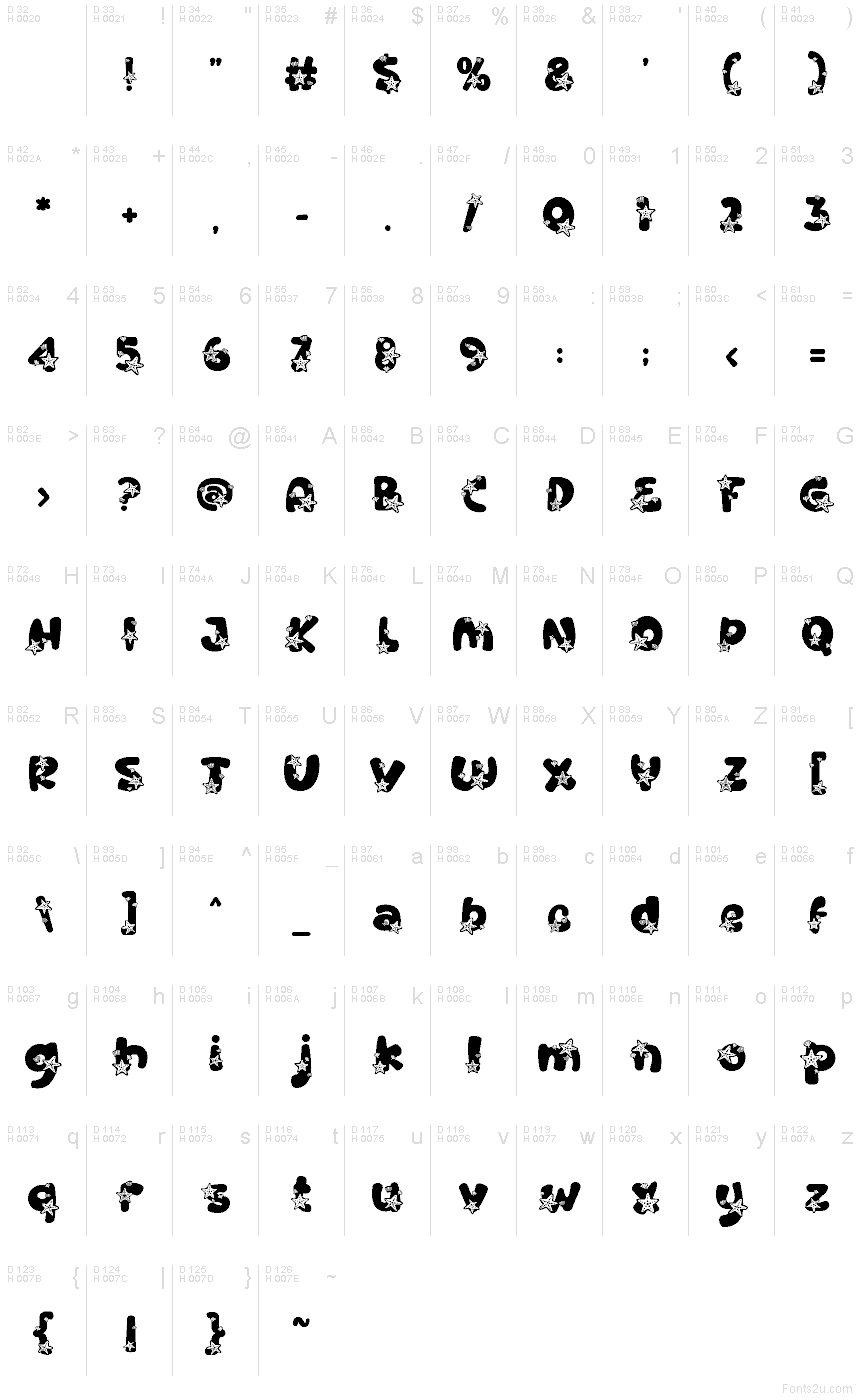
Sandy Toes Star Fish
Sandy Toes Star Fish font by PutraCetol Studio is a display typeface with star motifs throughout the letters. Featuring textured interior patterns, the script handwritten font offers a retro-inspired look that despite its bold characters maintains a casual aesthetic suitable for leisure contexts.
Create captivating packaging designs for your food products including biscuit and chocolate bar branding or take the fun on to your store signage banners. Use the font to focus an audience at trade show displays (exhibition stands) or at your dessert shops (cakes, donuts). The free font can be used in book covers and in greeting cards tailored for kids and adult audiences, gadget stickers, badges/pins insights, and clothing prints.